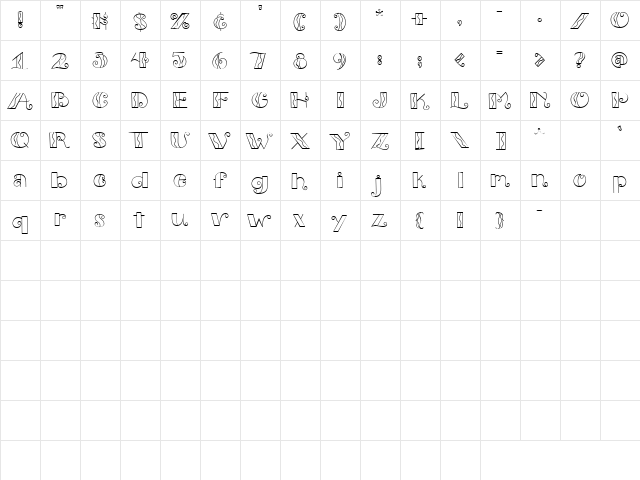
CK Contemporary Capitals Regular
Design Context for CK Contemporary Capitals Typeface
CK Contemporary Capitals is a composed and adaptable typeface that performs quietly and consistently across a wide range of design contexts.